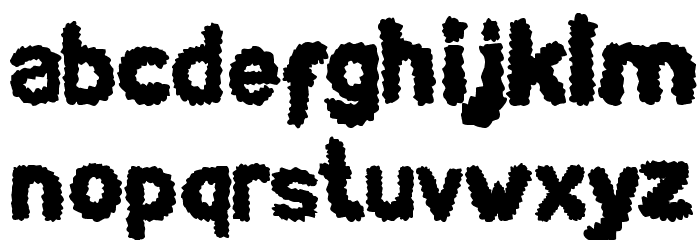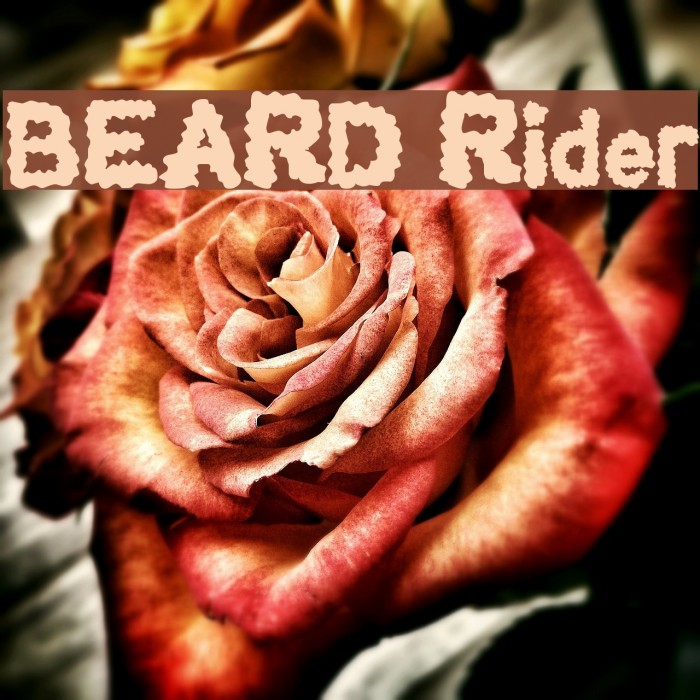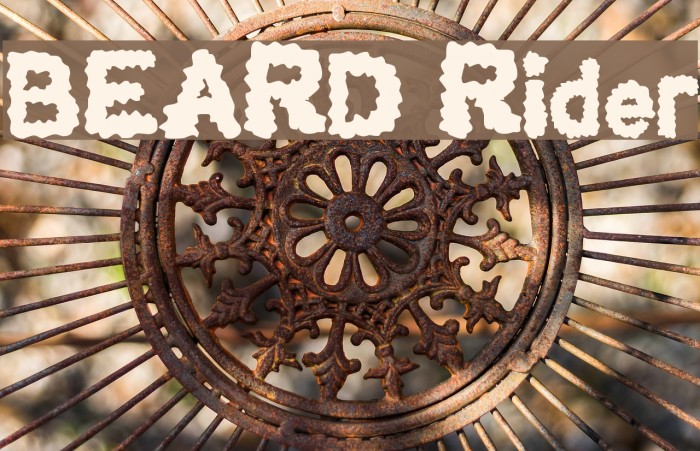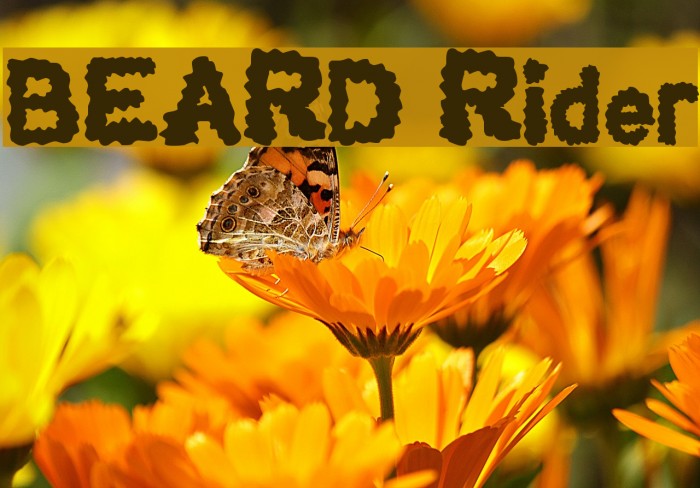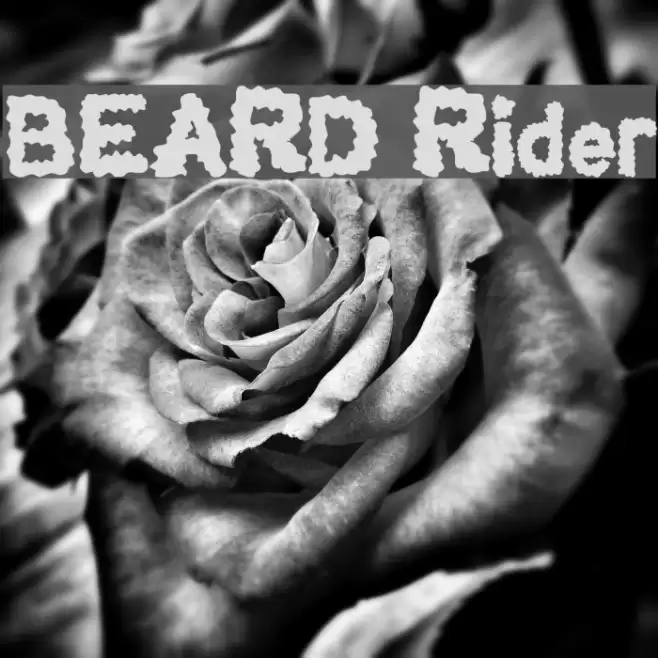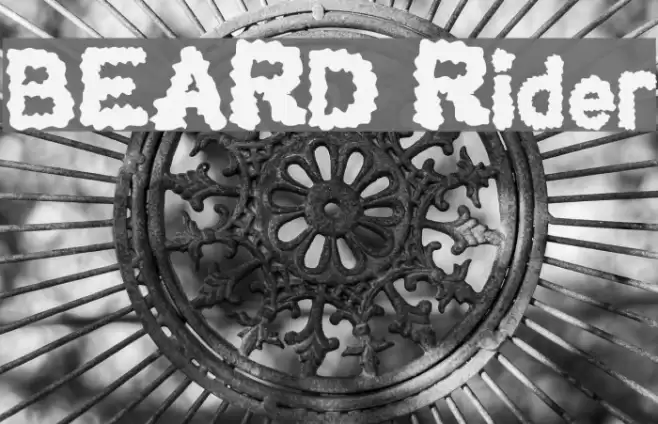
BEARD Rider Font
This font features a bold, textured design that resembles a rugged, organic pattern, giving it a unique and eye-catching appearance. The characters are formed with irregular, jagged edges, creating a sense of movement and dynamism. This style is reminiscent of natural elements, making it suitable for projects that require a rustic or adventurous feel. The uppercase and lowercase letters maintain consistent styling, ensuring readability while still offering a distinctive look. The numbers and special characters follow the same design principles, providing a cohesive and harmonious set.
A bold, textured font with rugged, organic patterns and jagged edges.
- Proposed Projects: Ideal for outdoor adventure branding, rustic-themed posters, or unique logo designs.